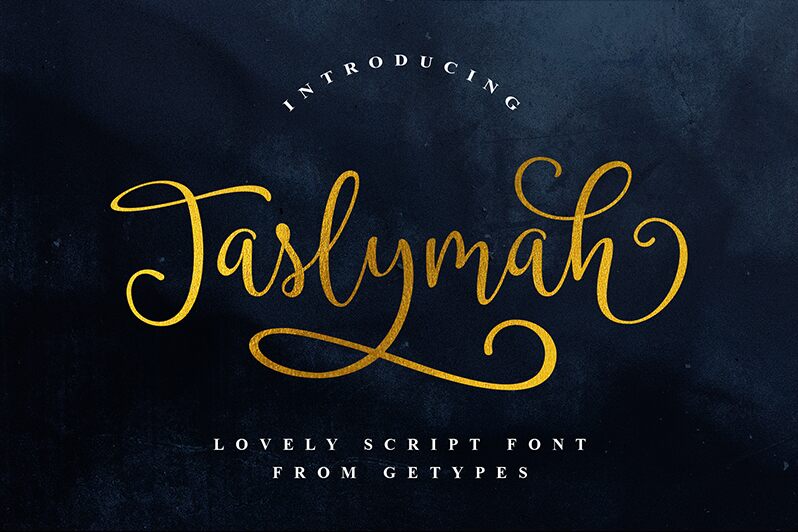
Taslymah, designed by Rizaldi Wandani, is a beautiful calligraphy font with a light weight. Perfect for adding an elegant yet whimsical touch to your projects, Taslymah is ideal for wedding invitations, signage designs, logos and much more.
Taslymah
Getypes Studio
Rizaldi Wandani